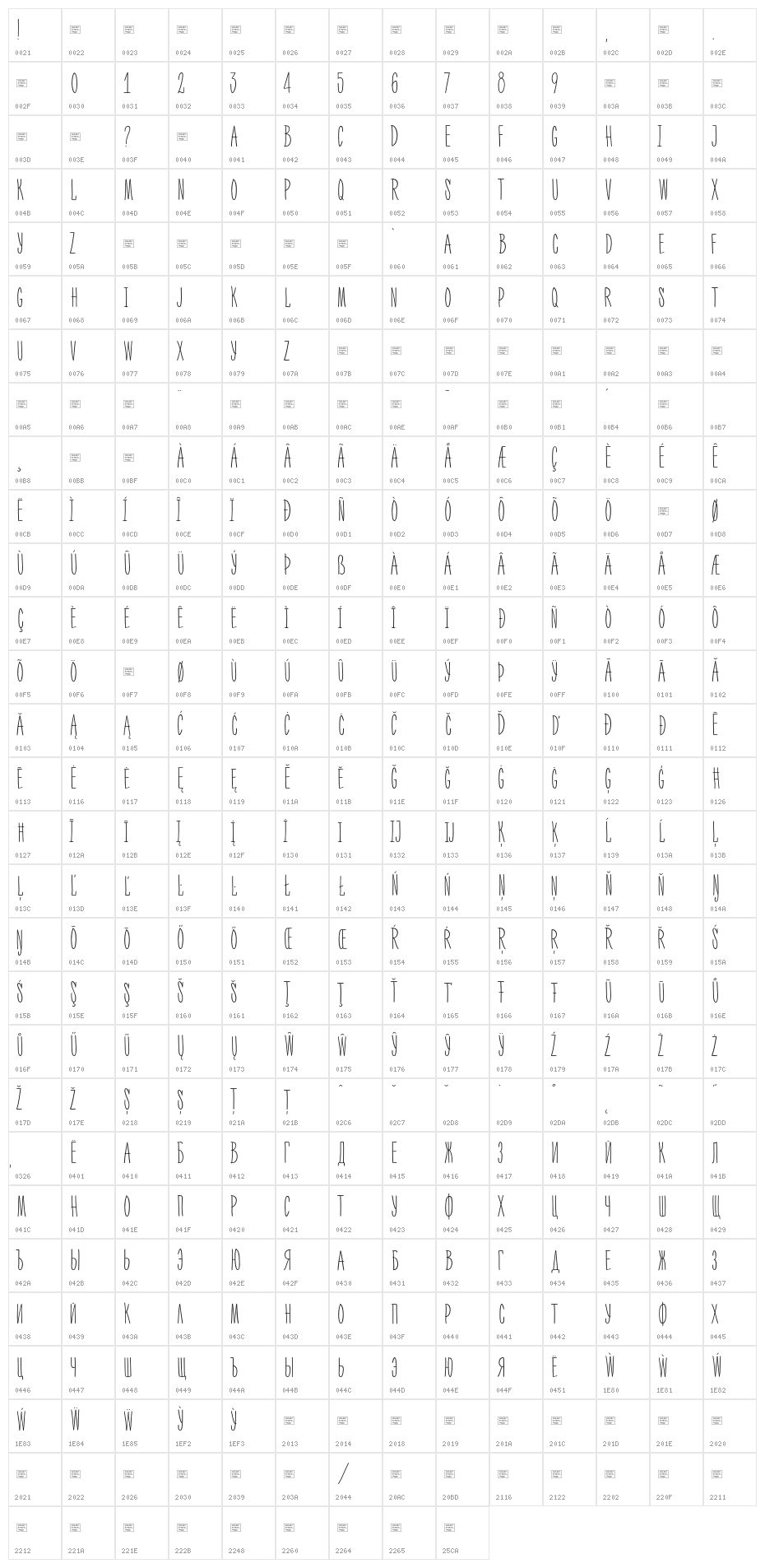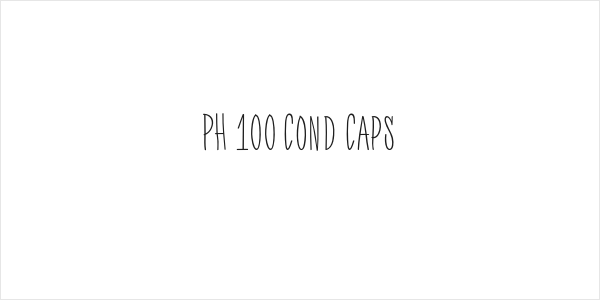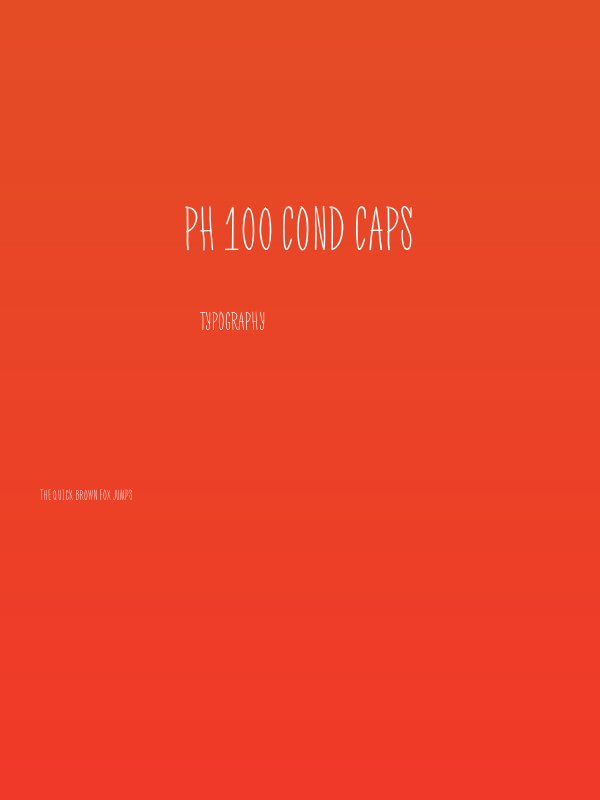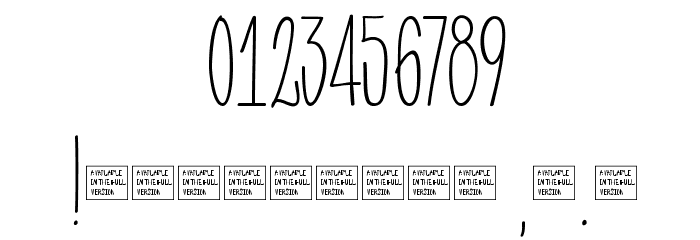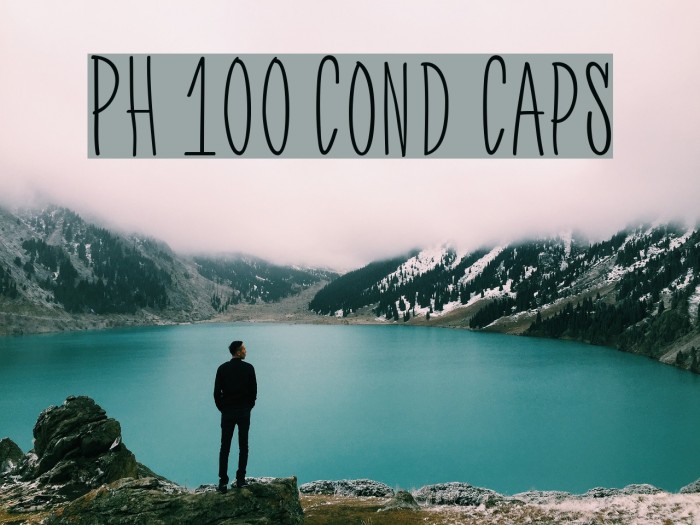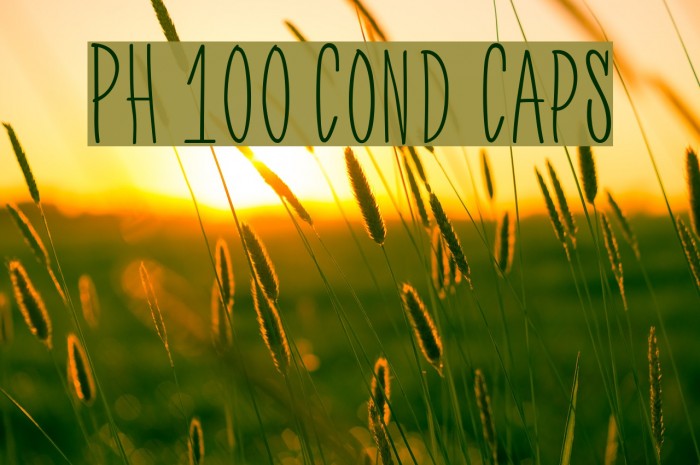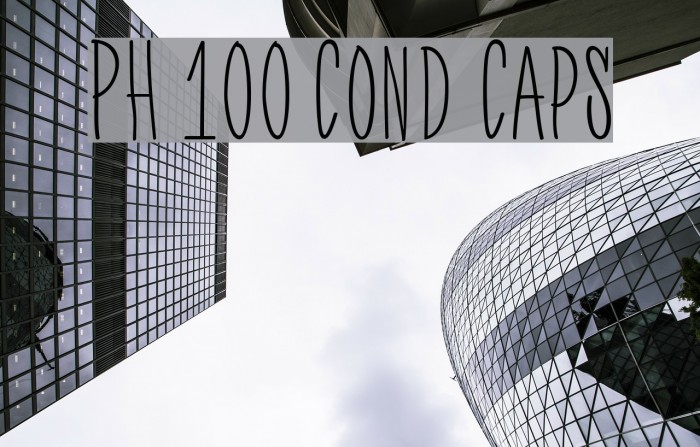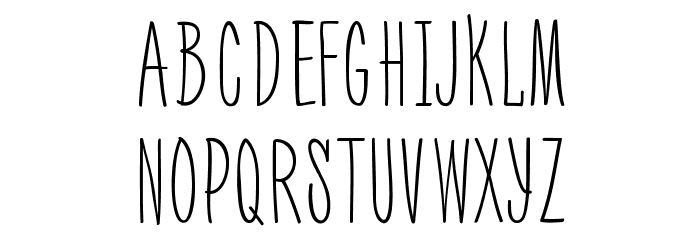
PH 100 Cond Caps Font
PH 100 Cond Caps Description
This font features a condensed and tall letterform with a playful and slightly whimsical style. The characters are uniformly narrow, giving it a sleek and modern appearance. The strokes are consistent in thickness, providing a clean and crisp look. The uppercase letters are prominent, with a slight curve that adds a touch of elegance. The numbers are similarly styled, maintaining the overall aesthetic of the font. This font is versatile, suitable for various design projects that require a unique and eye-catching typeface.
| Proposed Projects | Ideal for posters, headlines, branding, and creative projects that require a distinctive and modern typeface. |